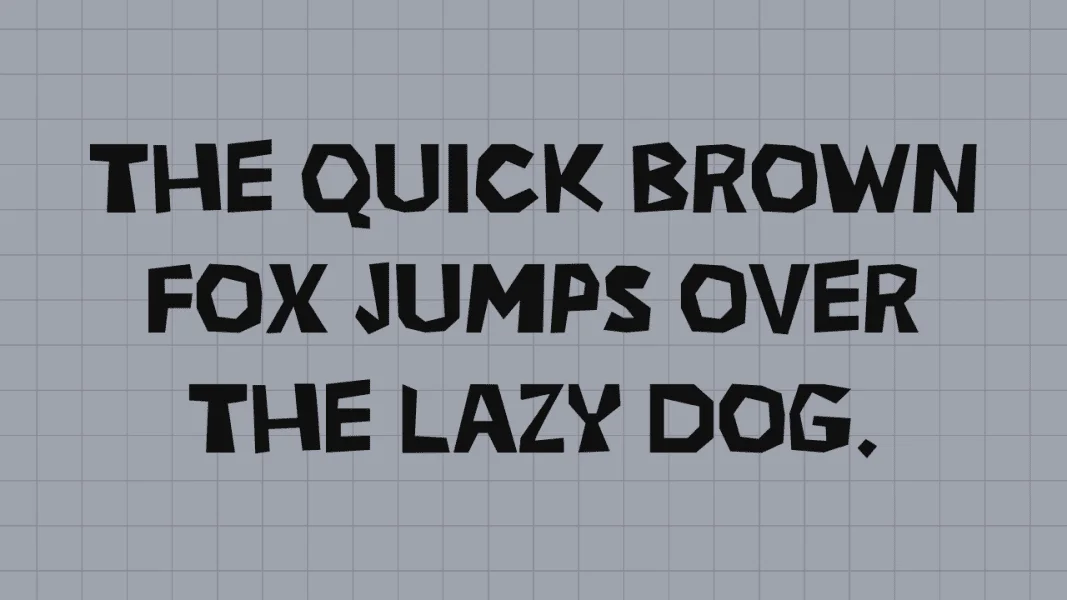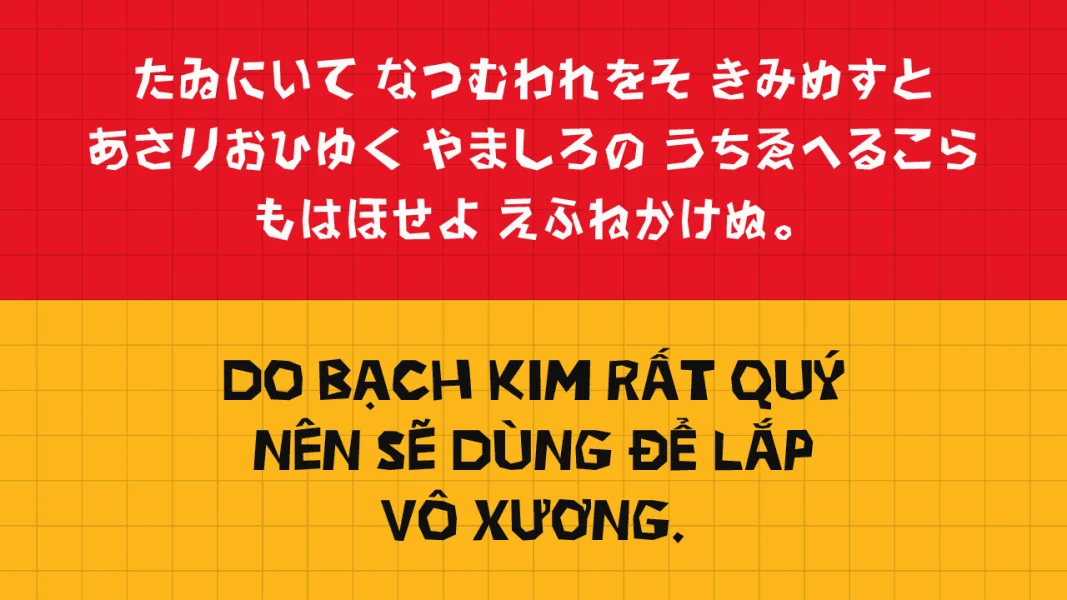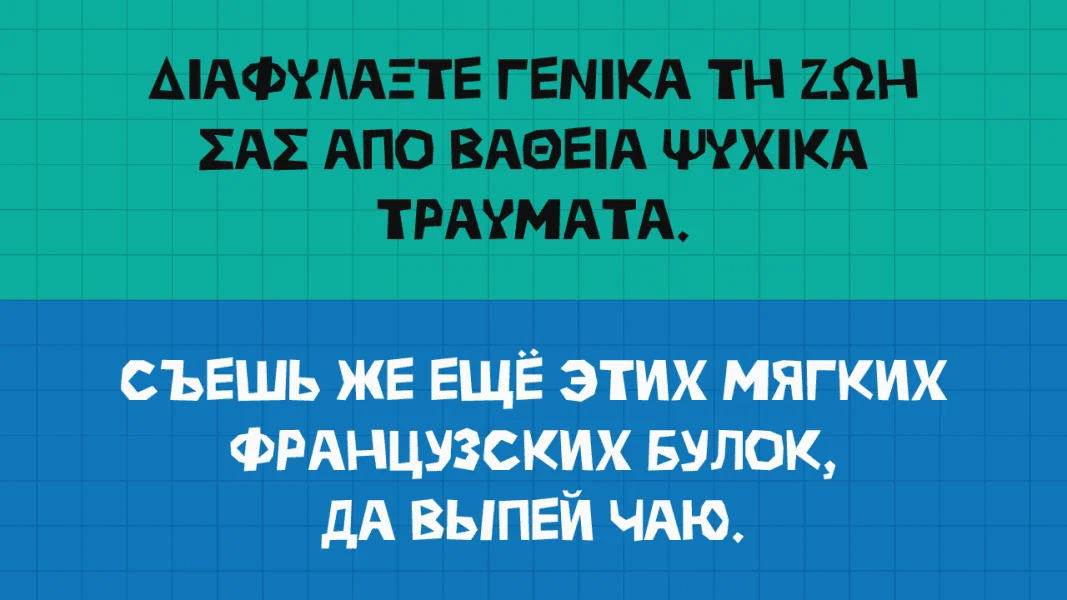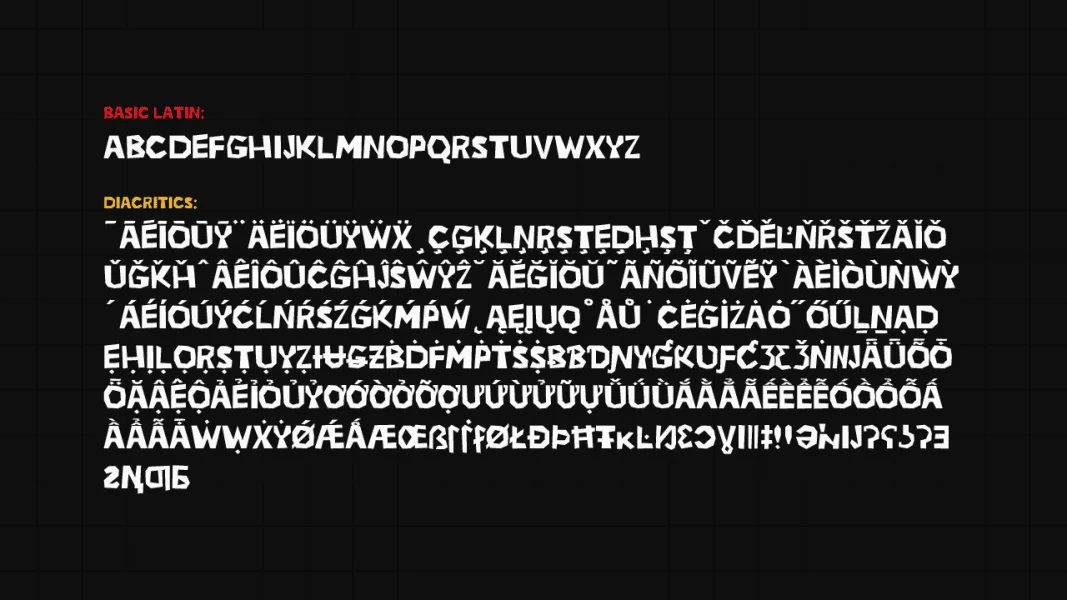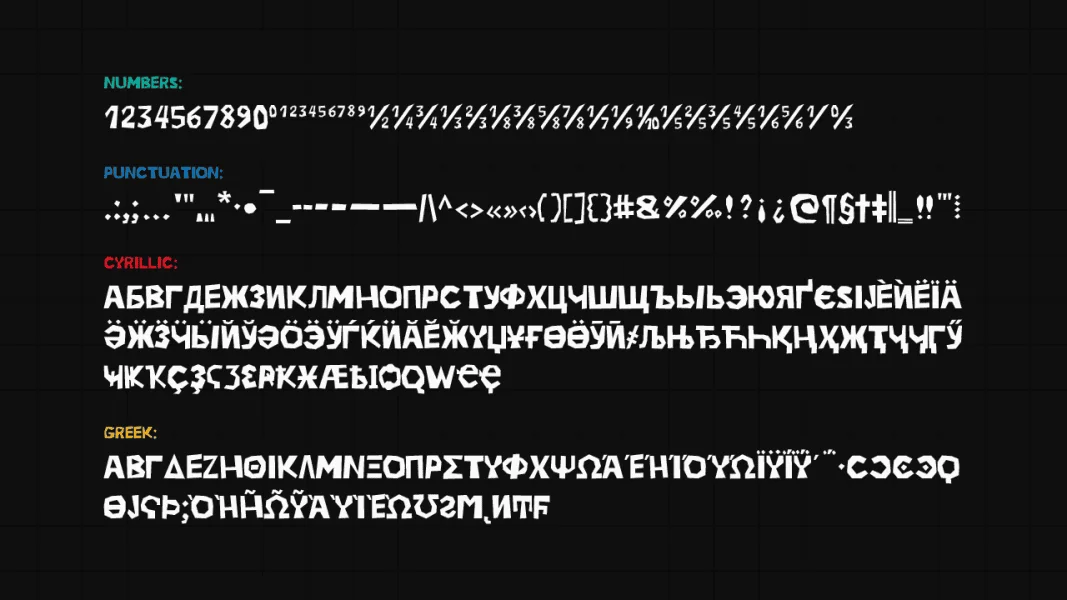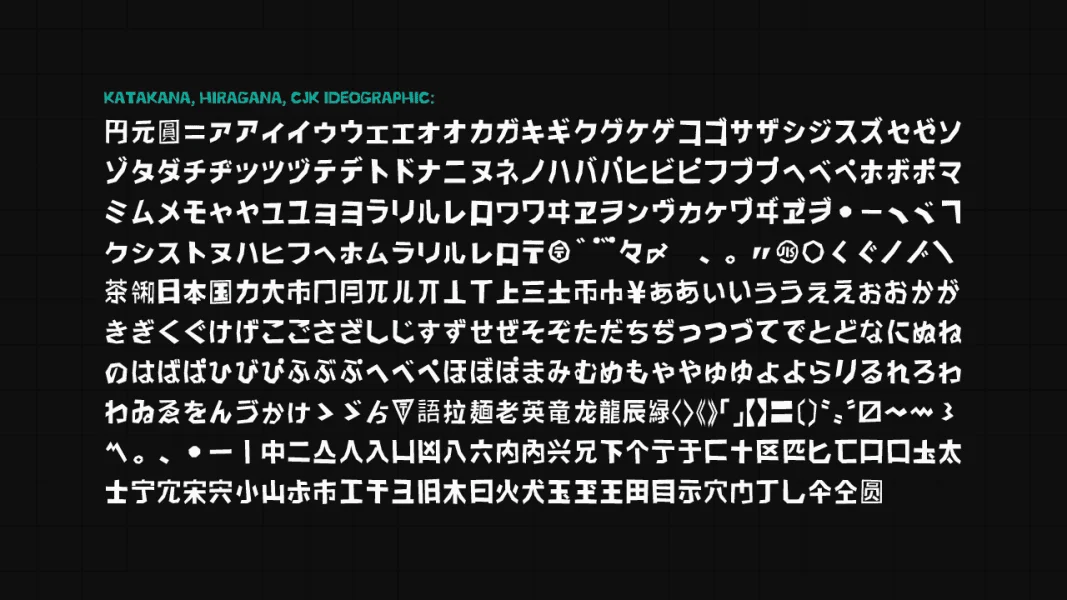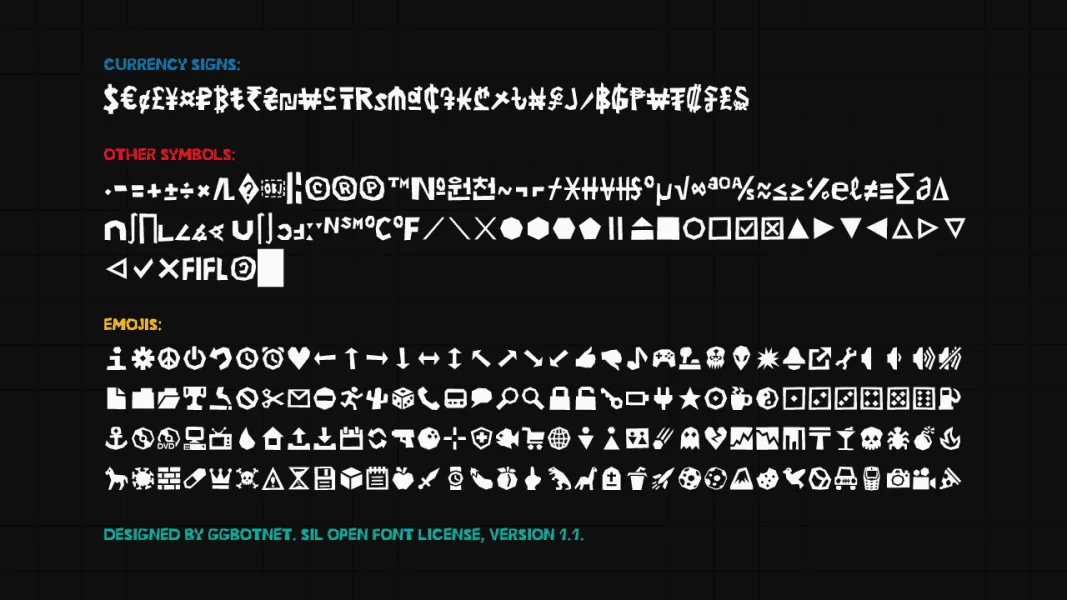
Zero Cool is a chunky caps-only display font with a playful comic attitude. Its blocky letterforms use uneven angles, clipped corners, and rugged polygonal curves, giving the alphabet a lively cut-paper energy rather than a polished geometric finish.
The heavy weight, tight rhythm, and bold silhouettes make Zero Cool well suited for posters, game graphics, children’s branding, stickers, merchandise, and energetic headlines. It also supports a broad multilingual character set, making it useful for bold display work across Latin, Cyrillic, Greek, Vietnamese, and Japanese text.